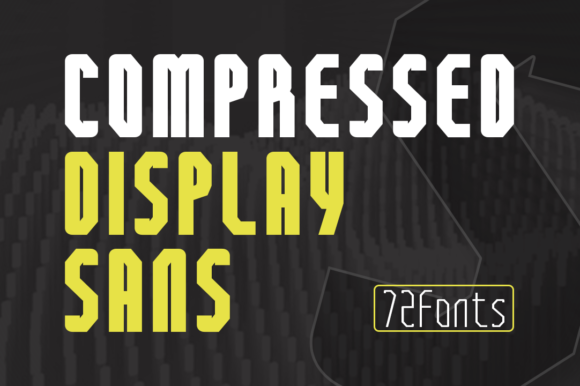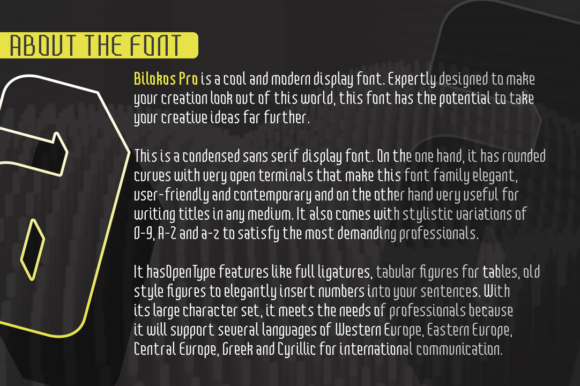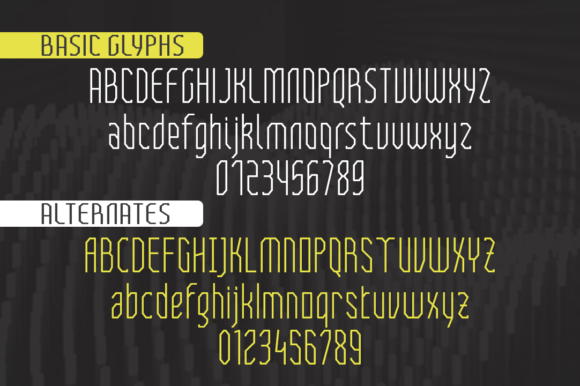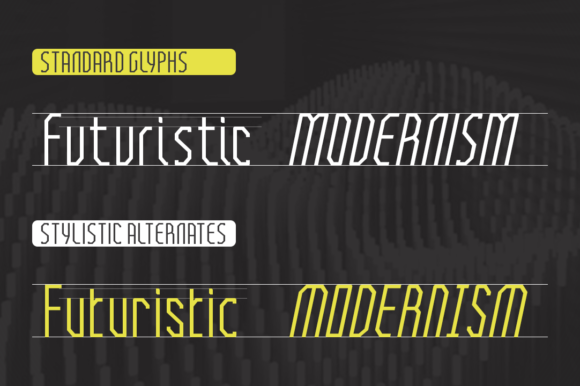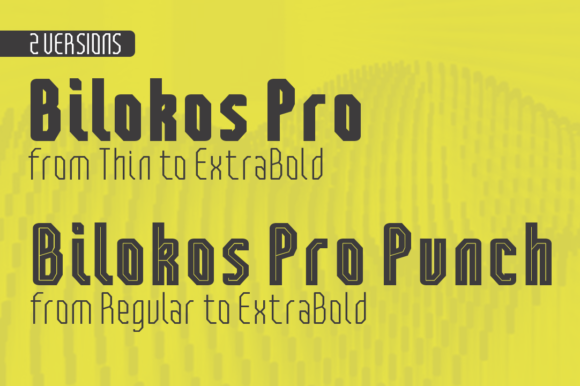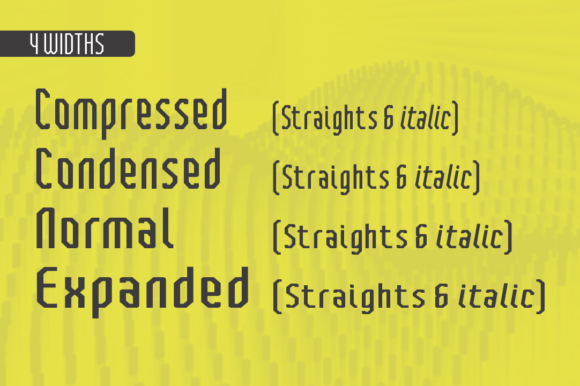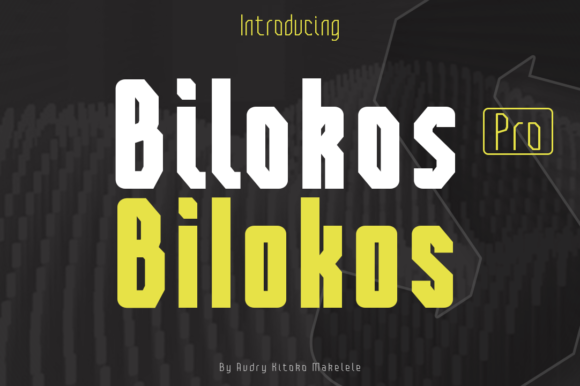
Bilokos Font: The Ultimate Display Font for Creative Projects
Bilokos is a bold and incredibly cool display font that has been making waves in the design community. This font is a wonderful asset to your font library, as it has the potential to enhance any creation, regardless of the topic or theme. In this article, we’ll dive into the world of Bilokos Font, exploring its features, benefits, and uses, and why it’s a must-have for designers and crafters.
What is Bilokos Font?
Bilokos Font is a display font that boasts a unique and eye-catching design. Its bold and striking appearance makes it perfect for headlines, titles, and other display purposes. The font’s design is characterized by its clean lines, sharp edges, and a distinctive flair that sets it apart from other fonts.
Key Features of Bilokos Font
- Bold and Eye-Catching: Bilokos Font is designed to grab attention. Its bold and striking appearance makes it perfect for headlines, titles, and other display purposes.
- Versatile: Despite its bold design, Bilokos Font is surprisingly versatile. It can be used for a wide range of projects, from posters and flyers to logos and branding materials.
- Easy to Read: Despite its bold design, Bilokos Font is easy to read, even at smaller sizes. This makes it perfect for use in a variety of contexts, from digital displays to print materials.
- Unique Flair: Bilokos Font has a distinctive flair that sets it apart from other fonts. Its unique design elements make it perfect for projects that require a bit of personality.
Benefits of Using Bilokos Font
So why should you use Bilokos Font in your projects? Here are just a few benefits of incorporating this font into your design workflow:
- Adds Visual Interest: Bilokos Font adds a touch of visual interest to any project. Its bold and striking appearance makes it perfect for grabbing attention and drawing the eye.
- Enhances Branding: Bilokos Font can be used to enhance branding materials, such as logos, business cards, and letterheads. Its unique design elements make it perfect for creating a distinctive brand identity.
- Perfect for Display Purposes: Bilokos Font is designed specifically for display purposes. It’s perfect for use in headlines, titles, and other display elements.
- Easy to Pair with Other Fonts: Despite its bold design, Bilokos Font is easy to pair with other fonts. Its clean lines and simple design make it a great match for a wide range of font styles.
Uses of Bilokos Font
Bilokos Font is a versatile font that can be used in a wide range of projects. Here are just a few ideas to get you started:
- Posters and Flyers: Bilokos Font is perfect for use in posters and flyers. Its bold and striking appearance makes it perfect for grabbing attention and drawing the eye.
- Logos and Branding Materials: Bilokos Font can be used to create distinctive logos and branding materials. Its unique design elements make it perfect for creating a memorable brand identity.
- Digital Displays: Bilokos Font is perfect for use in digital displays, such as website headers, social media graphics, and digital signage.
- Print Materials: Bilokos Font can be used in a wide range of print materials, from business cards and letterheads to brochures and magazines.
Tips for Using Bilokos Font
Here are a few tips for getting the most out of Bilokos Font:
- Use it Sparingly: Bilokos Font is a bold font, so it’s best to use it sparingly. Use it for headlines and titles, and pair it with a simpler font for body text.
- Experiment with Colors: Bilokos Font looks great in a wide range of colors. Experiment with different colors and combinations to find the one that works best for your project.
- Pair it with Other Fonts: Bilokos Font is easy to pair with other fonts. Experiment with different font combinations to find the one that works best for your project.
Bilokos Font is a bold and incredibly cool display font that’s perfect for designers and crafters. Its unique design elements, versatility, and ease of use make it a wonderful asset to your font library. Whether you’re working on a poster, logo, or digital display, Bilokos Font is sure to enhance your creation and add a touch of visual interest. So why not give it a try and see what you can create?